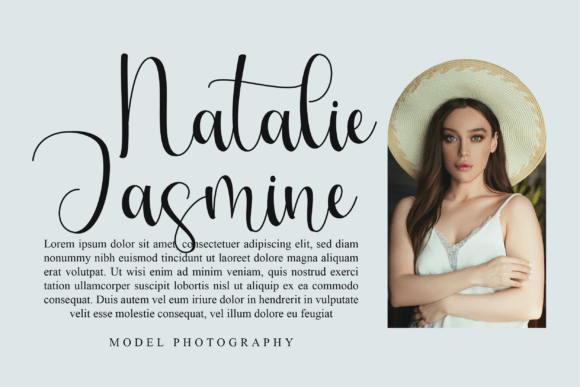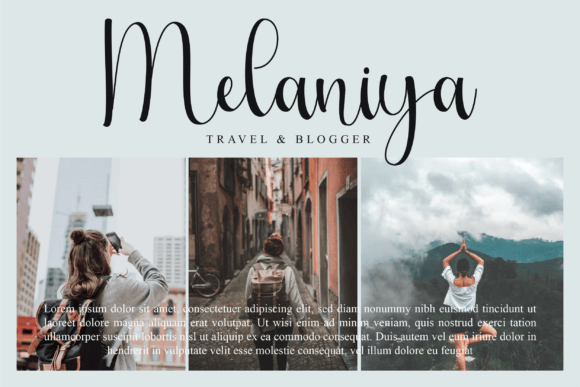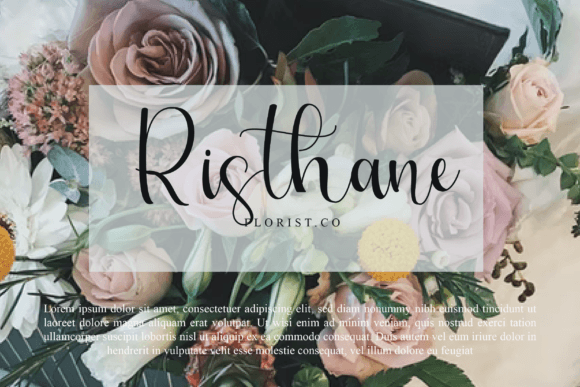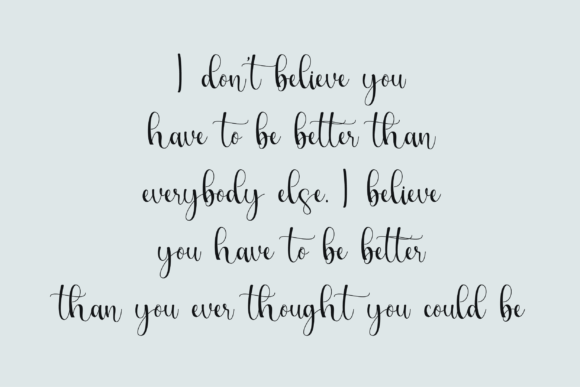
Alafeda Font
About Alafeda Font
Alafeda exudes both charm and elegance, making it a font that captivates with its aesthetic appeal. This versatile typeface is particularly striking on wedding invitations, thank you cards, quotes, greeting cards, logos, business cards, and any other design that benefits from a graceful and handwritten touch.
The charm of Alafeda is evident in its design, which carries an inviting and friendly demeanor. The handwritten touch brings a personal and warm element to the text, making it suitable for projects where a touch of charm is desired. Whether used in heartfelt thank you cards or on elegant wedding invitations, Alafeda’s charm shines through.
The elegance of Alafeda adds a sophisticated touch to various design applications. Its refined letterforms make it equally suitable for formal occasions, such as business cards or corporate invitations, where an air of grace and sophistication is essential.
The versatility of Alafeda is a key feature that enhances its usability across a range of designs. Whether you’re crafting a logo that needs a balance of charm and professionalism or designing a quote for social media, this font adapts seamlessly to different contexts, ensuring a cohesive and visually appealing result.
In the realm of wedding stationery, Alafeda stands out as a font that brings a perfect blend of charm and elegance. Its ability to convey both warmth and sophistication makes it an ideal choice for creating stunning invitations, place cards, and other elements that contribute to the romantic atmosphere of weddings.
The handwritten touch of Alafeda extends beyond paper to digital media. Whether featured in a logo on a website or used in social media graphics, the font maintains its charm and elegance, making it a versatile choice for modern design needs.
In summary, Alafeda is a font that beautifully marries charm and elegance. Its stunning presence on various design materials, from wedding invitations to business cards, showcases its adaptability and appeal. Whether you’re crafting something heartfelt or formal, Alafeda is a font that leaves a lasting impression with its handwritten grace and timeless elegance.